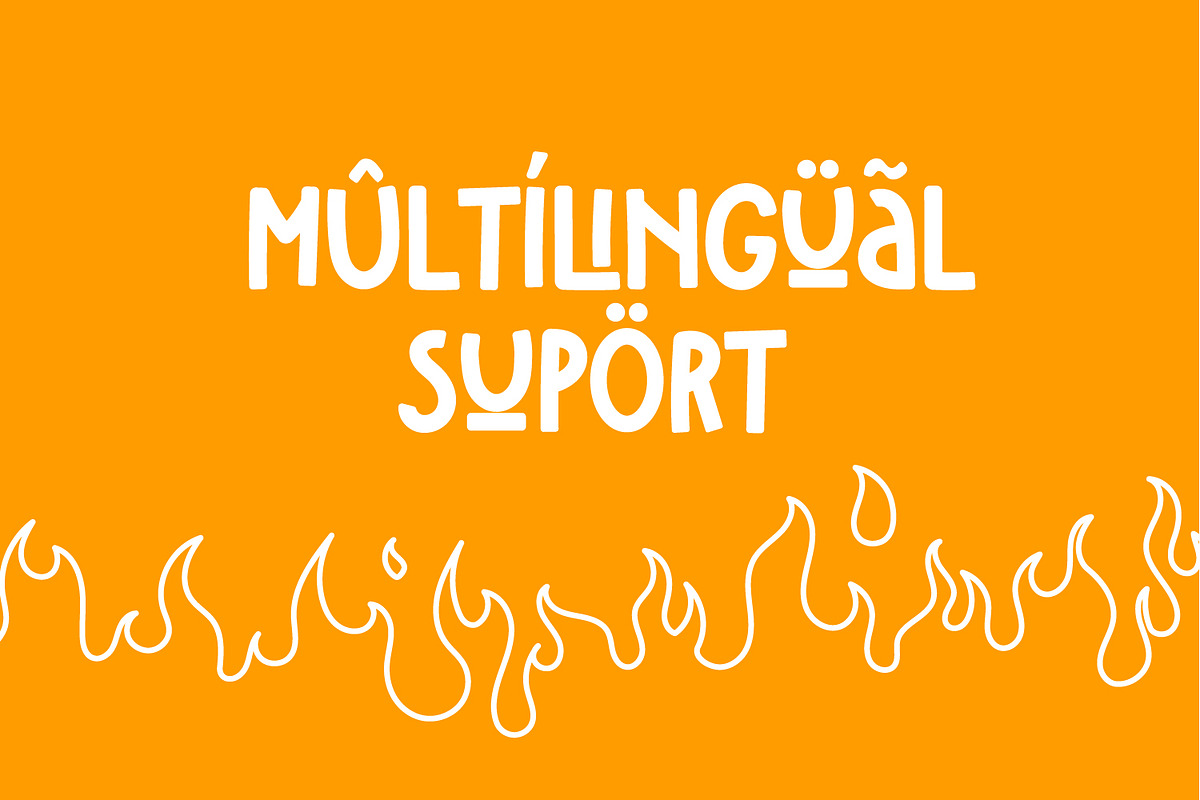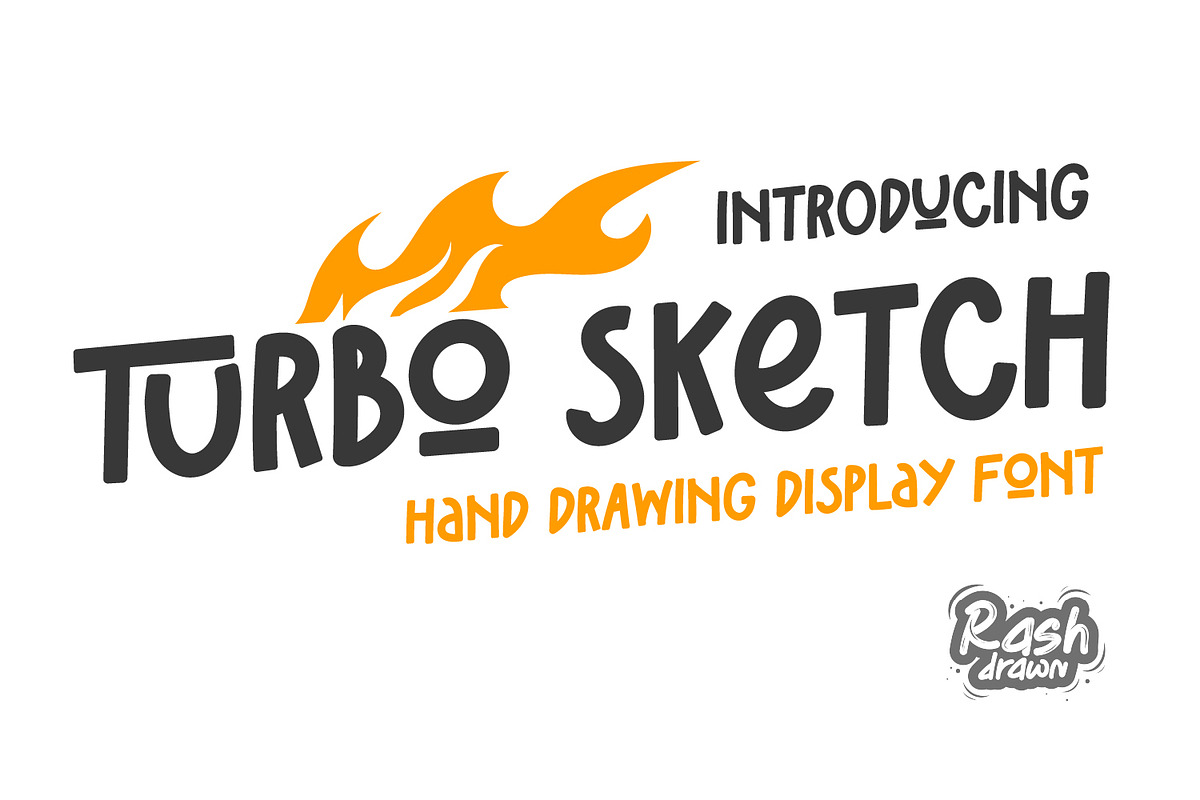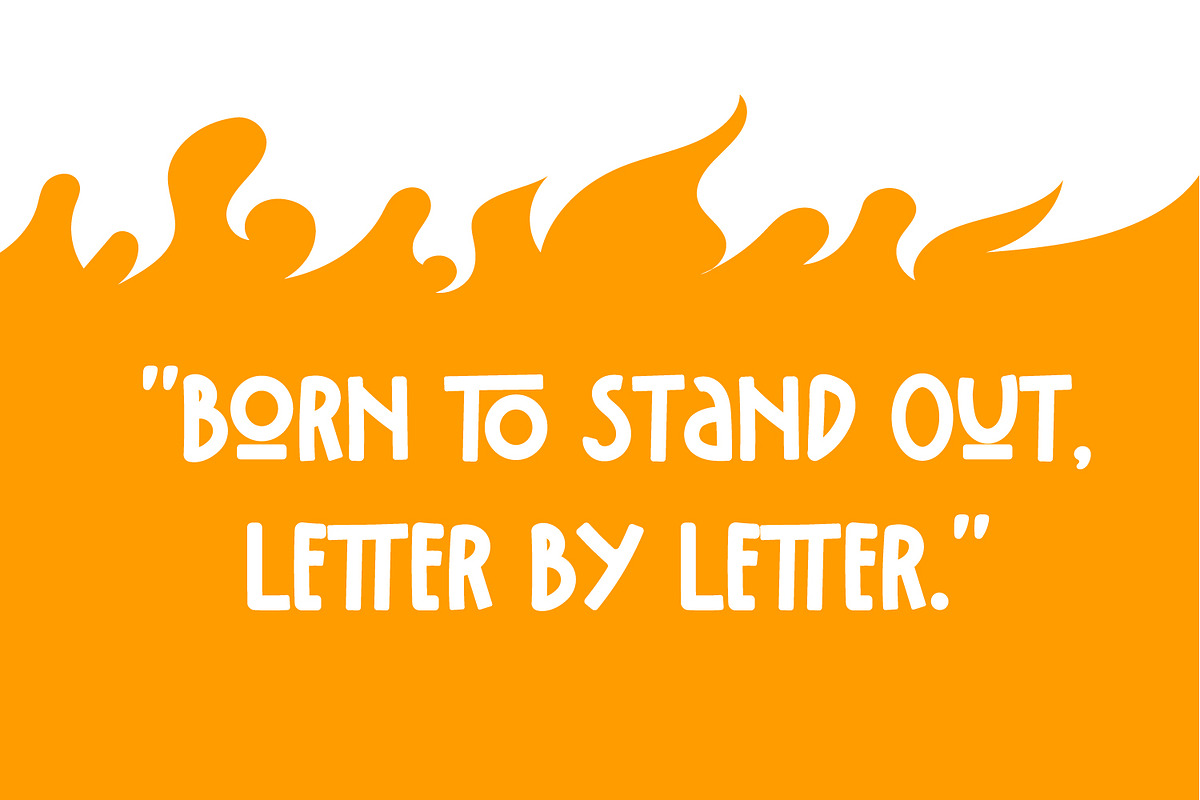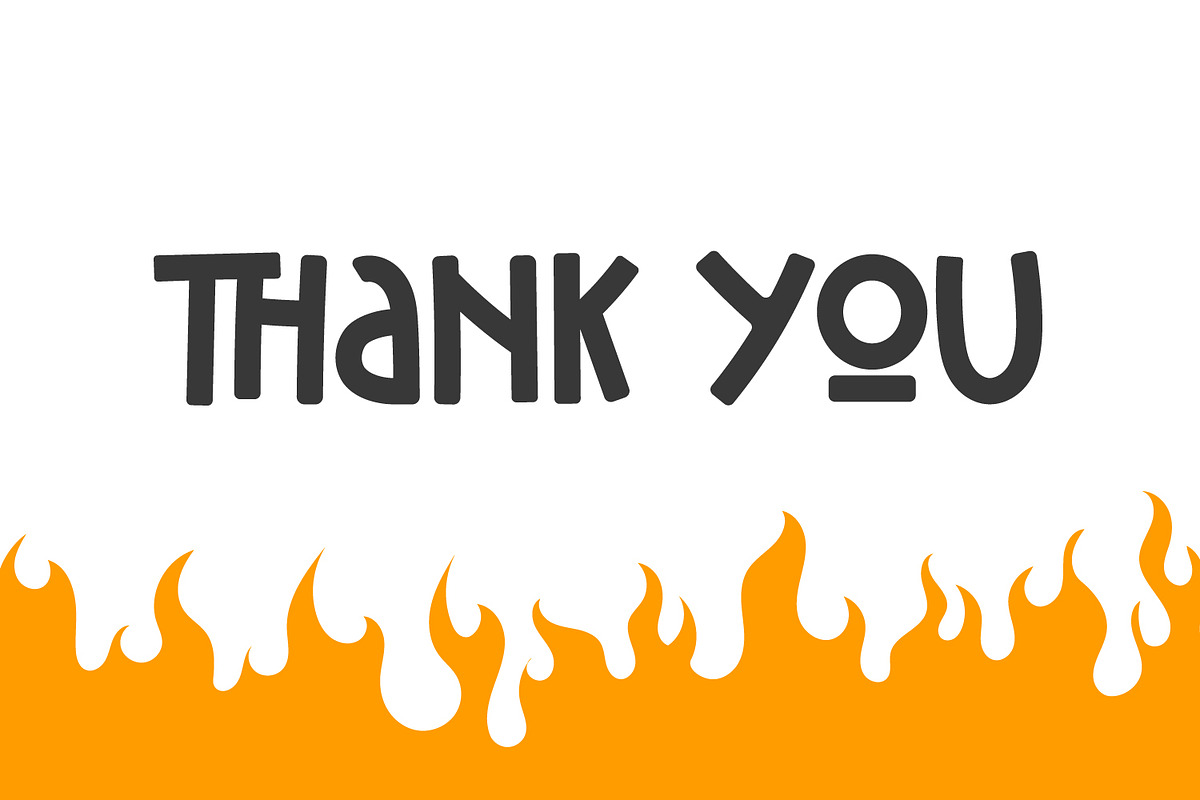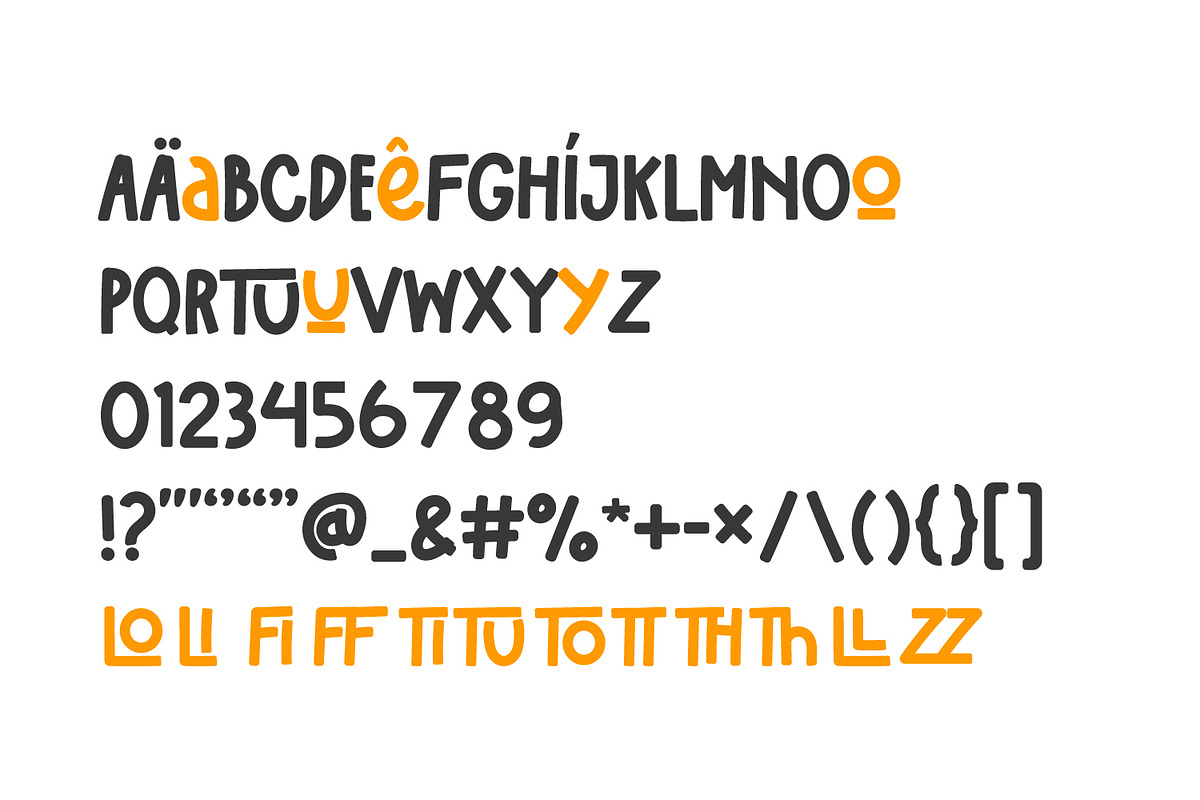
Turbo Sketch
Turbo Sketch is a bold, energetic hand-drawn display font that captures the wild spirit of creativity. With its chunky strokes, playful curves, and sketchbook vibes, this font brings a turbo-charged personality to your designs.
Perfect for posters, kids' projects, comics, branding, and anything that needs a punch of fun, Turbo Sketch adds movement and attitude to every letter. Whether you're shouting out a headline or adding flair to a logo, this font does it loud and proud.
Get ready to scribble with style — Turbo Sketch is here to move your message fast and loud!